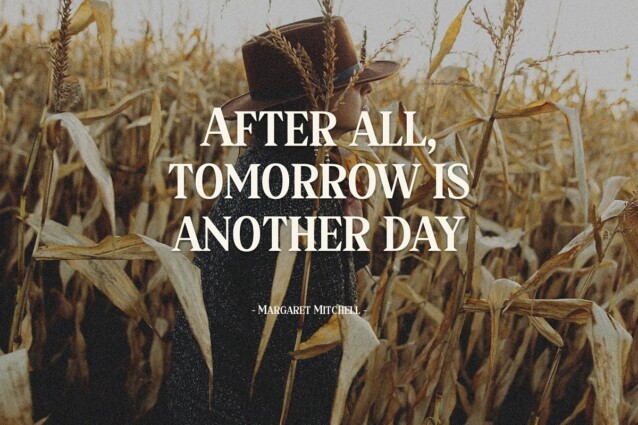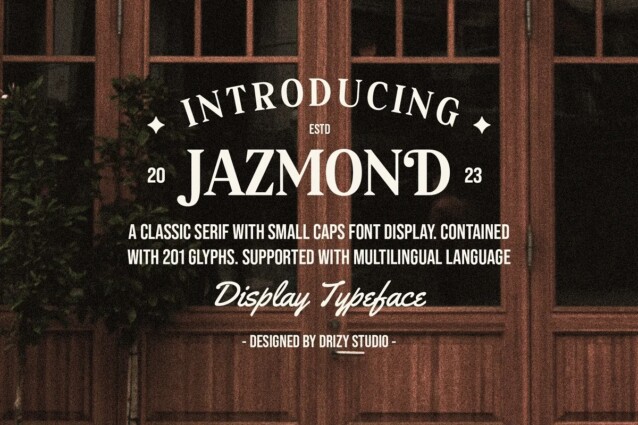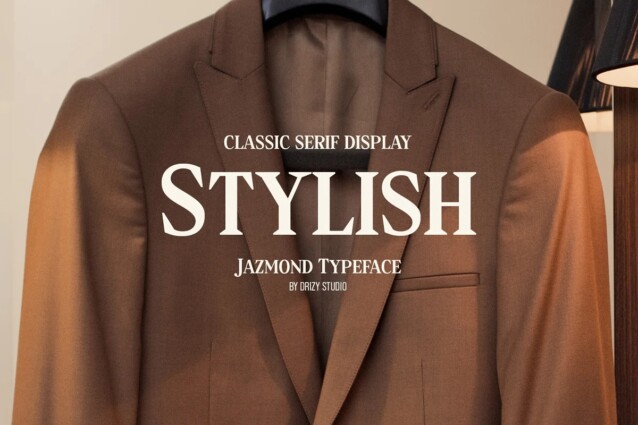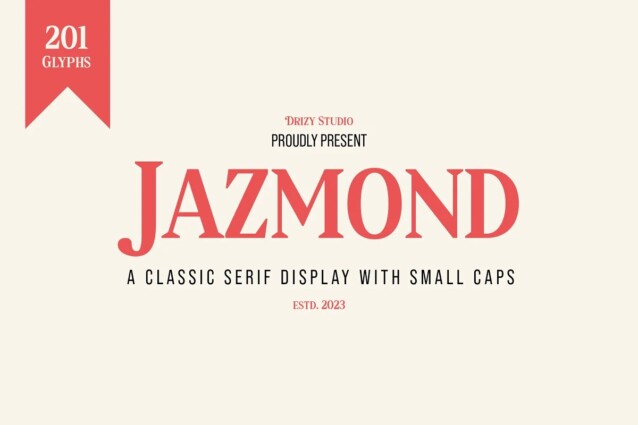
Jazmond Font
Jazmond Font is a balanced, smooth, elegant and stylish serif font created by Drizy with small caps offer a unique and refined typographic style that combines the elegance of traditional serif typefaces with the visual appeal of small capitals.